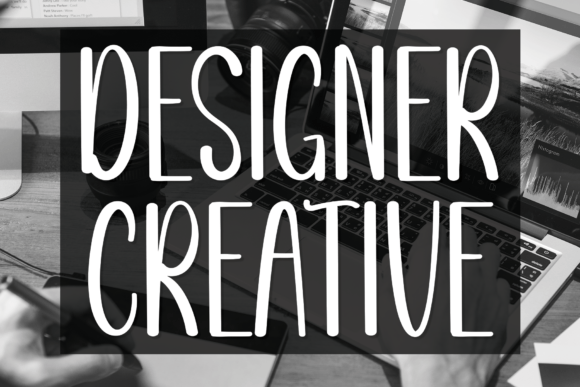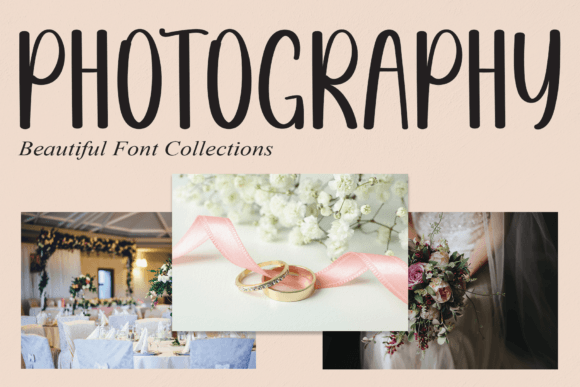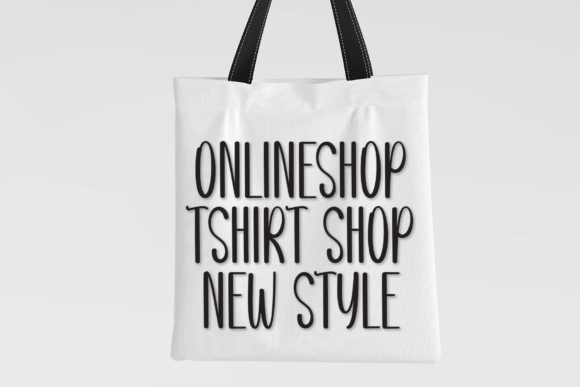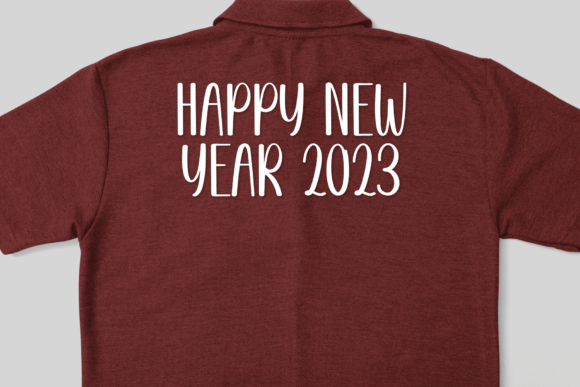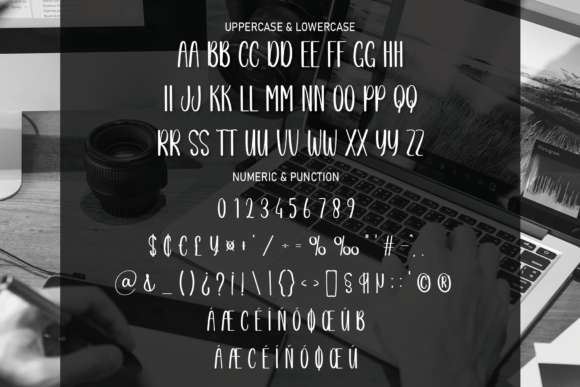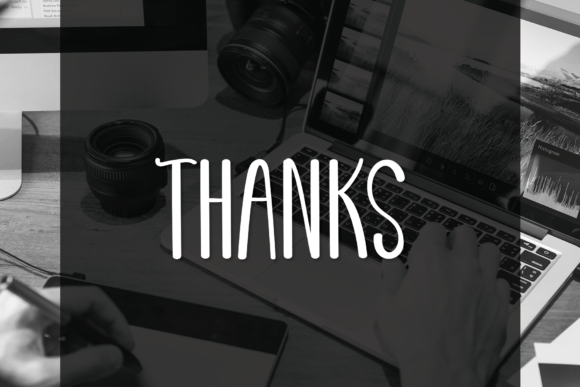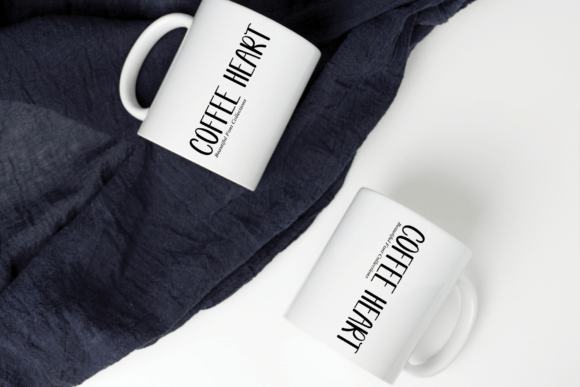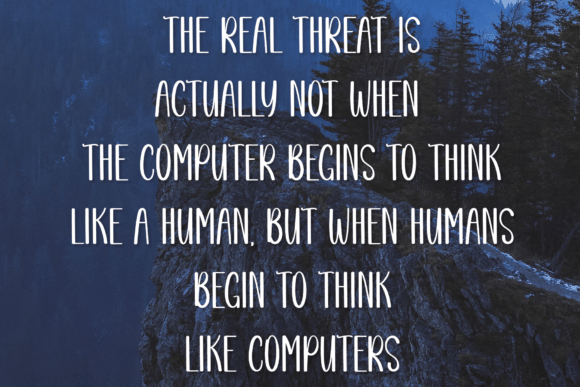
Designer Creative Font
A Versatile Handwritten Typeface for Creative Projects
The Designer Creative Font is a versatile handwritten typeface designed to add a personalized and elegant touch to any project. Its stylish and artistic design makes it ideal for a wide range of creative applications. Whether you’re creating wall displays, wedding invitations, social media post logos, or advertisements, the Designer Creative Font enhances your designs with a unique, charming flair.
Perfect for Wedding Invitations and Special Occasions
The Designer Creative Font is perfect for wedding invitations and other special occasion designs. Whether you’re working on save-the-dates, invitations, or thank you cards, this font provides a romantic and elegant touch to your stationery. Its handwritten style ensures your designs feel personal and memorable, making them ideal for weddings, anniversaries, and other celebrations.
Great for Logos and Branding
For logos and branding, the Designer Creative Font offers a stylish, approachable design. Whether you’re designing a personal brand logo, business branding, or social media content, this font gives your brand a distinctive and authentic look. Its handwritten aesthetic ensures your brand feels personal and memorable, making it perfect for standing out in a competitive market.
Ideal for Advertisements and Product Packaging
For advertisements and product packaging, the Designer Creative Font provides a refined and personalized touch to your materials. Whether you’re designing product labels, flyers, or advertising posters, this font enhances your designs with a charming, authentic feel. Its versatile style ensures that your product packaging and promotional materials capture attention and leave a lasting impression.
Perfect for Photography and Watermarks
For photography and watermarks, the Designer Creative Font is an excellent choice. Whether you’re adding a photographer’s signature or custom watermark to your images, this font brings a distinctive, elegant touch to your photos. It’s also ideal for photo albums, portfolios, and watermarks, ensuring your work stands out with a personalized flair.
Elegant, Legible, and Versatile
Despite its stylish handwritten design, the Designer Creative Font remains legible and versatile. Its well-balanced strokes and smooth curves ensure that your text is easy to read, even at smaller sizes or for longer passages. Whether you’re creating headlines, captions, or body text, this font strikes the perfect balance between style and clarity, making it ideal for a wide range of creative applications.
Add Elegance and Charm to Your Designs with Designer Creative Font
If you’re looking for a versatile, elegant, and handwritten font to enhance your designs, the Designer Creative Font is the perfect choice. Whether you’re working on wedding invitations, logos, advertisements, or product packaging, this font brings a personalized, stylish touch to your work. Let the Designer Creative Font bring style, grace, and authenticity to your creative projects and help them stand out with elegance.